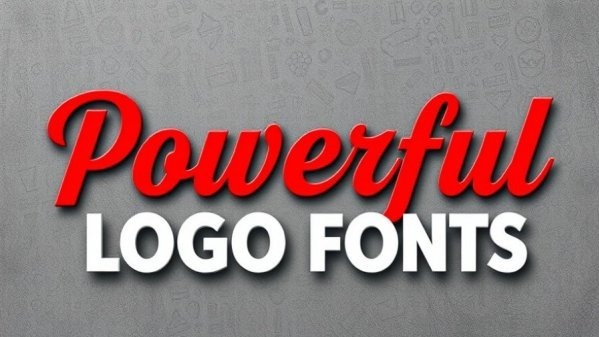
30 Powerful Logo Fonts: Elevating Your Brand Identity and Recognition
Powerful logo fonts for great typographic design
Unlocking Brand Potential: The Importance of Powerful Logo Fonts
In today's visually driven marketplace, your logo is often the first encounter potential customers have with your brand. This crucial touchpoint speaks volumes about your business—conveying messages of reliability, creativity, and professionalism all at once. As such, the choice of a powerful logo font becomes pivotal. It's a decision that requires careful consideration and understanding of typography’s subtleties.
The Foundation of Brand Identity: Why Fonts Matter
Fonts do more than just communicate; they're a foundational element of your brand's identity. Choosing the right logo font allows businesses to evoke specific emotions and create a particular perception. For instance, a modern, sleek sans-serif font might suggest innovation and reliability, while a handwritten script might evoke warmth and approachability. According to graphic design experts, a thoughtfully selected font can enhance brand recall and recognition. The question many designers face is: how to ensure they choose a font that resonates with their target audience?
30 Powerful Logo Fonts That Can Transform Your Brand
To assist in this crucial selection process, we’ve curated a list of 30 powerful logo fonts that cater to a variety of businesses and needs. Here’s a glimpse into how these fonts can shape your brand identity:
1. Logo Code: A modern techno font that creates clean, memorable wordmarks.
2. Gunty: Best for startups seeking a clean and confident identity.
3. Swoosh: Unique for delivering dynamic and memorable branding.
4. Minga: Ideal for geometric logo designs that convey modernity.
5. Agatic: Corporate branding with a contemporary style.
..(list continues through all 30 fonts)..
Choosing Fonts for Different Industries: What Works Best?
It's crucial to recognize that not all logo fonts will serve your brand equally well. For instance, a playful font may align perfectly with a children’s clothing brand but would appear out of place on a financial institution’s logo. Understanding your industry and audience is vital. Research shows that consumers often associate particular font styles with specific sectors; thus, aligning your choice with these perceptions can significantly enhance your brand's effectiveness.
Testing for Versatility: Fonts in Different Formats
The visibility of your logo across various platforms also leads us to another essential aspect of logo font selection: versatility. A logo must maintain its impact whether displayed on a business card or a giant billboard. Certain fonts may shine on a website but lose clarity when scaled down for mobile devices or social media. Therefore, designers should preview fonts in various sizes to ensure legibility and maintain brand consistency.
Actionable Insights: How to Evaluate Your Font Choices
Choosing the right font can be daunting, but a few strategies can simplify the process:
• Define Your Brand Personality: Consider your brand's core values and the emotions you wish to evoke.
• Keep It Simple: Opt for clean, minimal styles that won’t confuse consumers.
Conclusion: The Lasting Impact of Thoughtful Design
Understanding the integral role of typography in branding helps you succeed in building a strong visual identity. Whether you’re a startup or a well-established brand, the right powerful logo font enhances recognition and communicates your message effectively. Don't underestimate the power of a font in establishing your brand's presence in a crowded market!